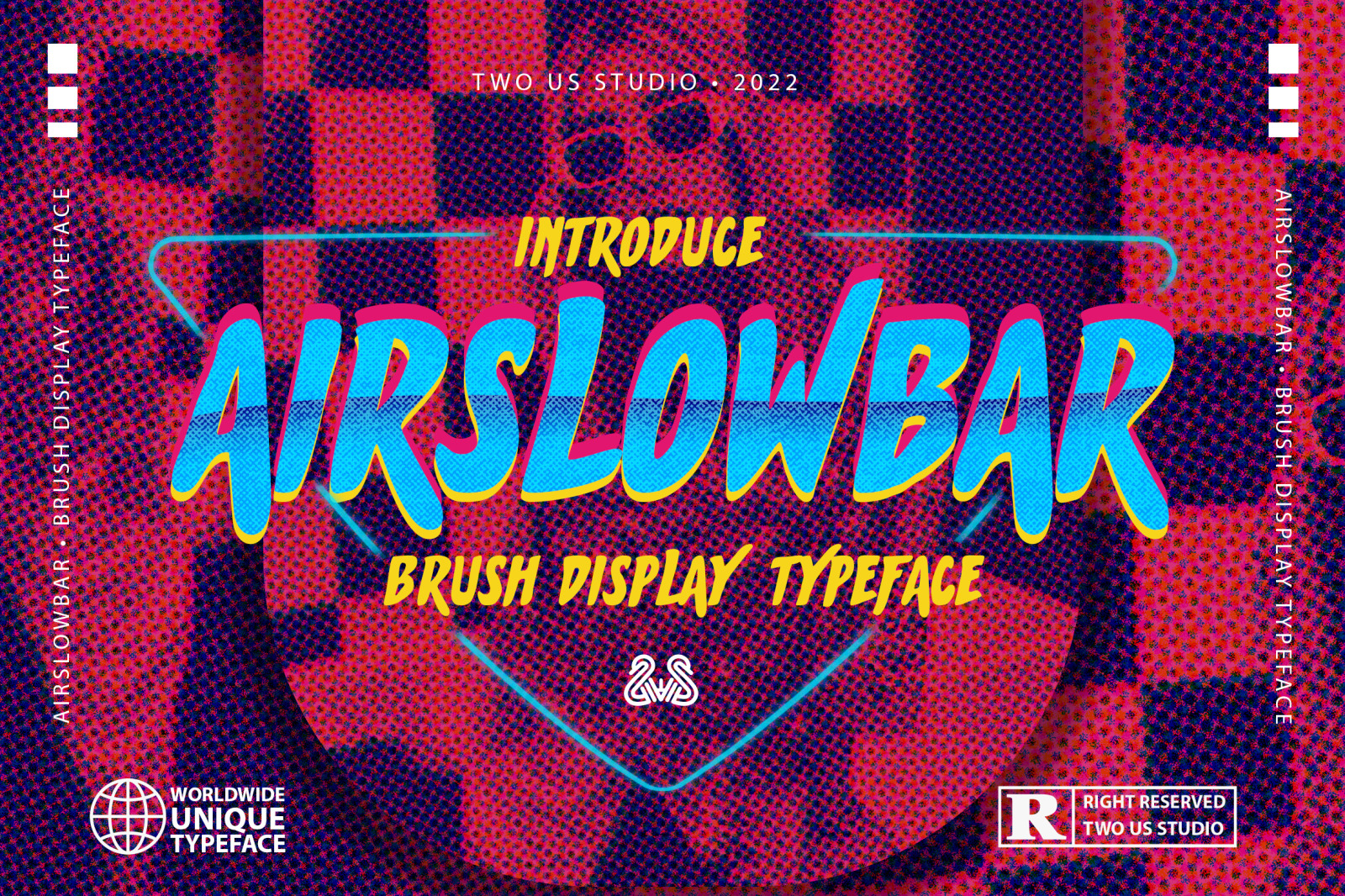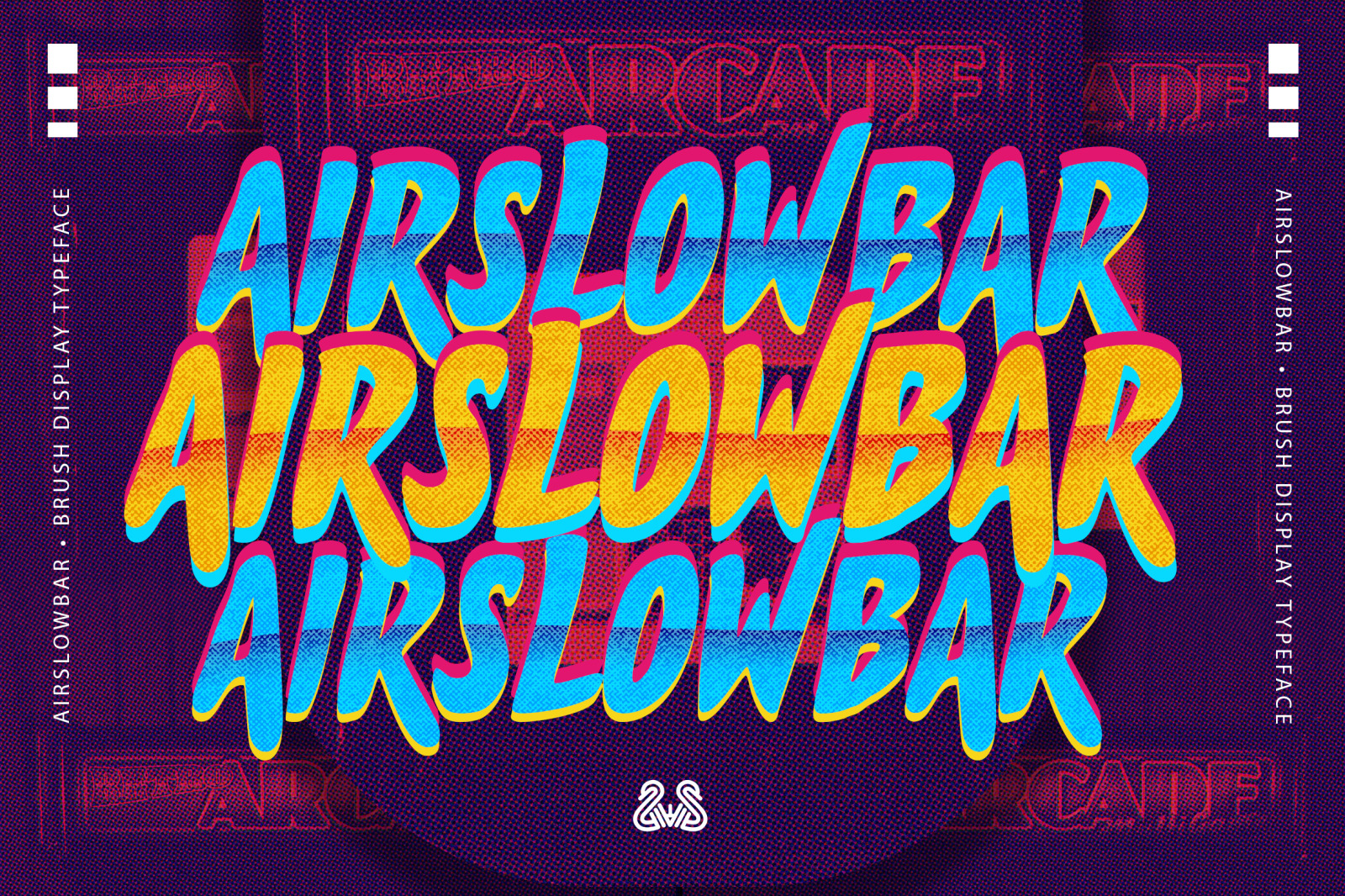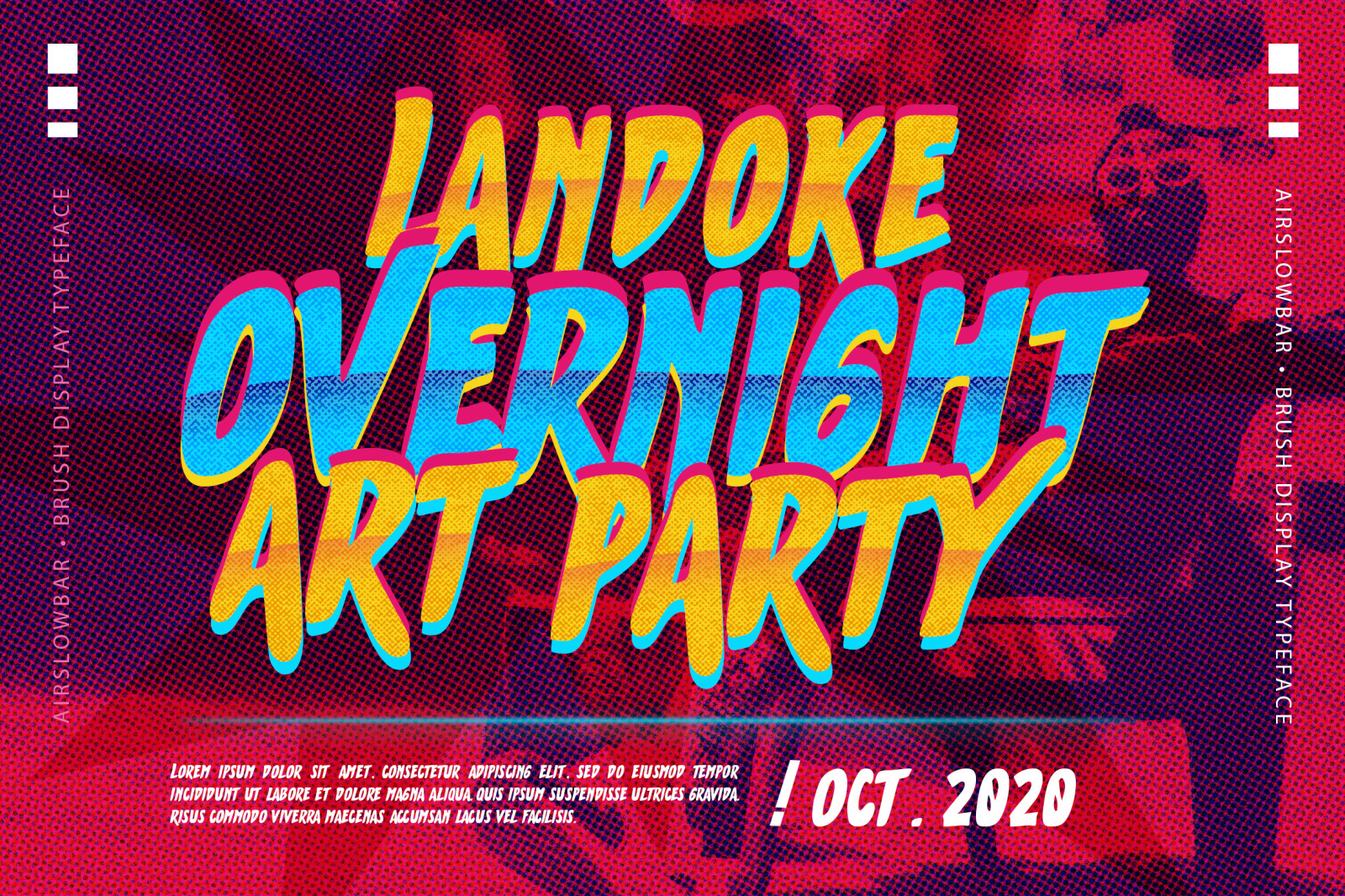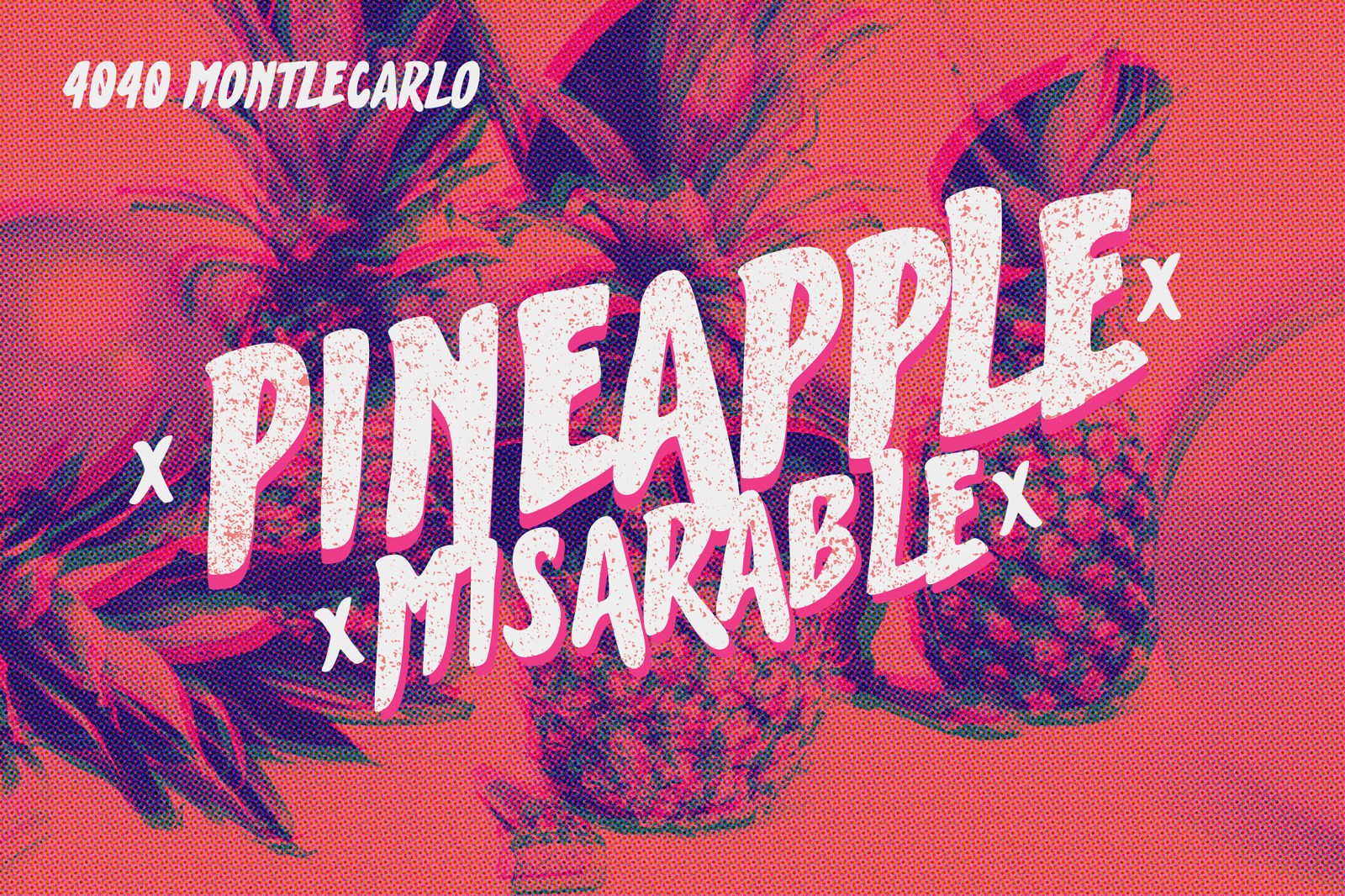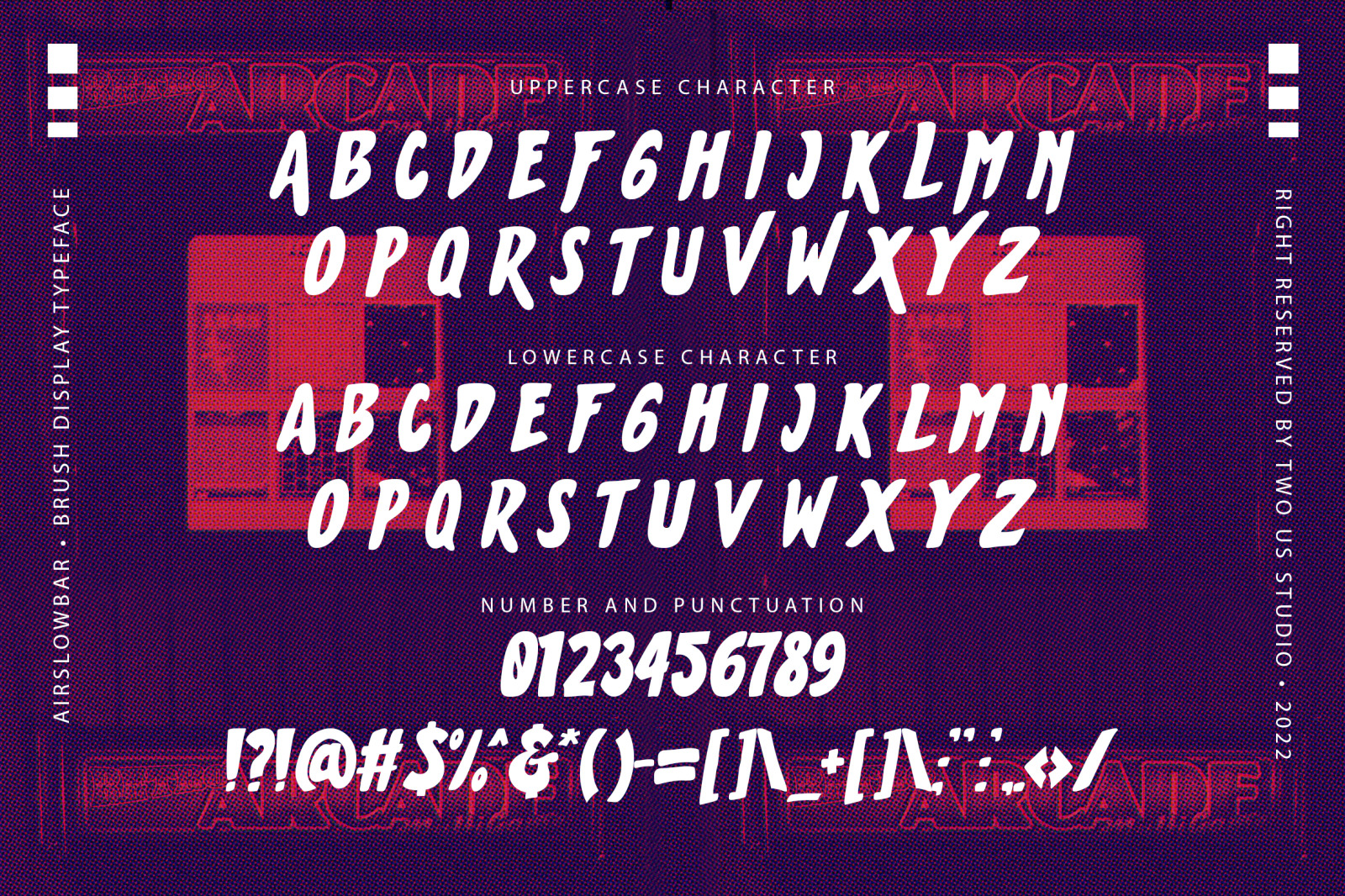
AIRSLOWBAR - BRUSH DISPLAY TYPEFACE
Airslowbar - Brush Display Typeface
Airslowbar is a Unique Hand brushed Typeface. This cool and simple font can easily become your favorite. It can be used for books, magazines, social media posts, invitations, and so much more! So add this to your creations and take your designs to the next level!